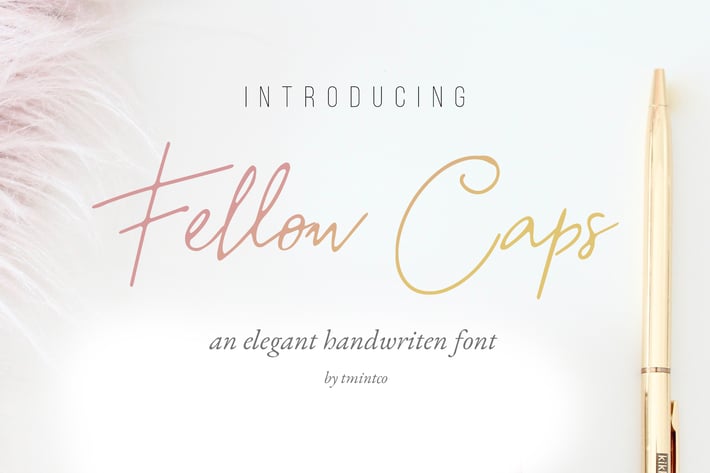
Fellow Caps - Handwritten Font
Fellow Caps - An elegant and aesthetic handwritten font with messy ink that make it natural and organic look. The unique flow and easy handwritten style makes it perfect for blogging, social media, branding, wedding invites, cards or simply use it in your next design project.